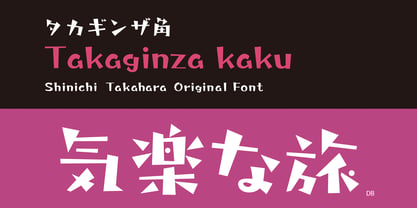
Takaginza-kaku
by Taka Design Production
The Takaginza-kaku Font Family was designed by and published by Taka Design Production. Takaginza-kaku contains 4 styles and family package options. More about this family
This is one of the "Tokyo Station Area Machi Name Series". Ginza, the setting for many songs and movies, has always been a glamorous part of Tokyo. It is difficult to express this image in a typeface, but we took on the challenge of devising a skeleton and elements to complete this typeface.